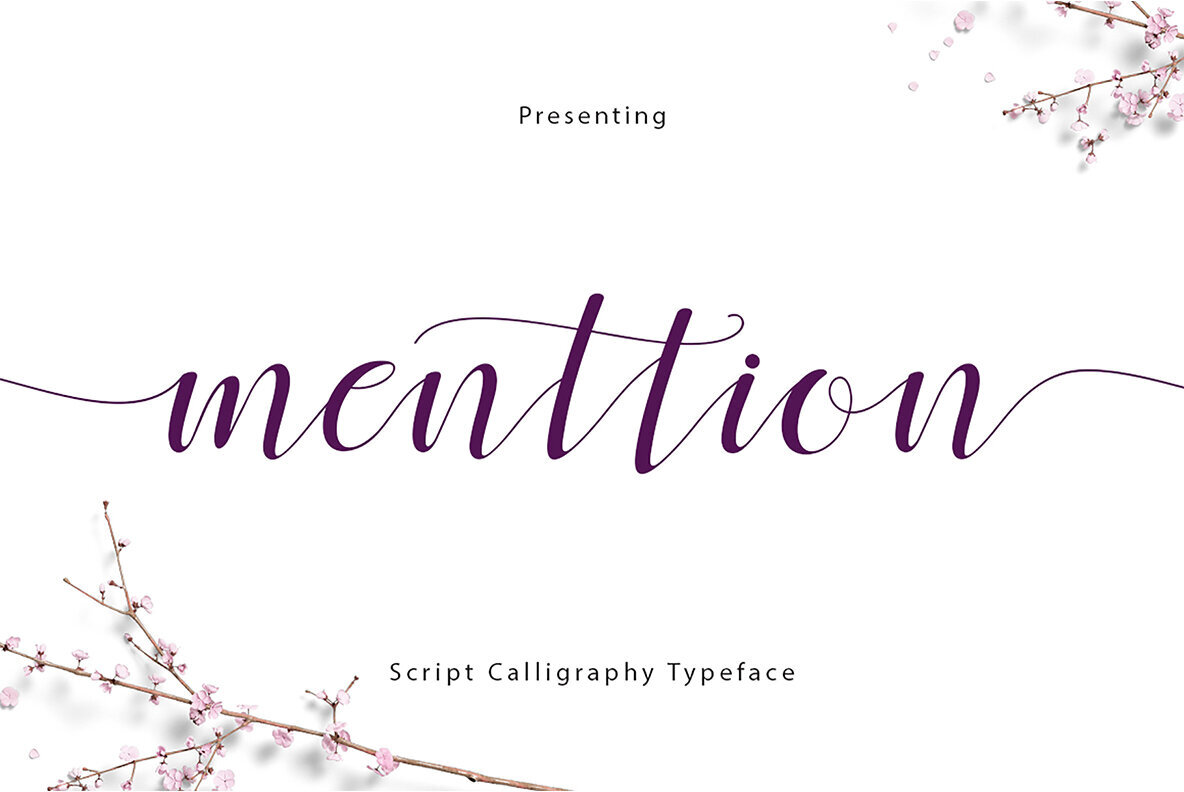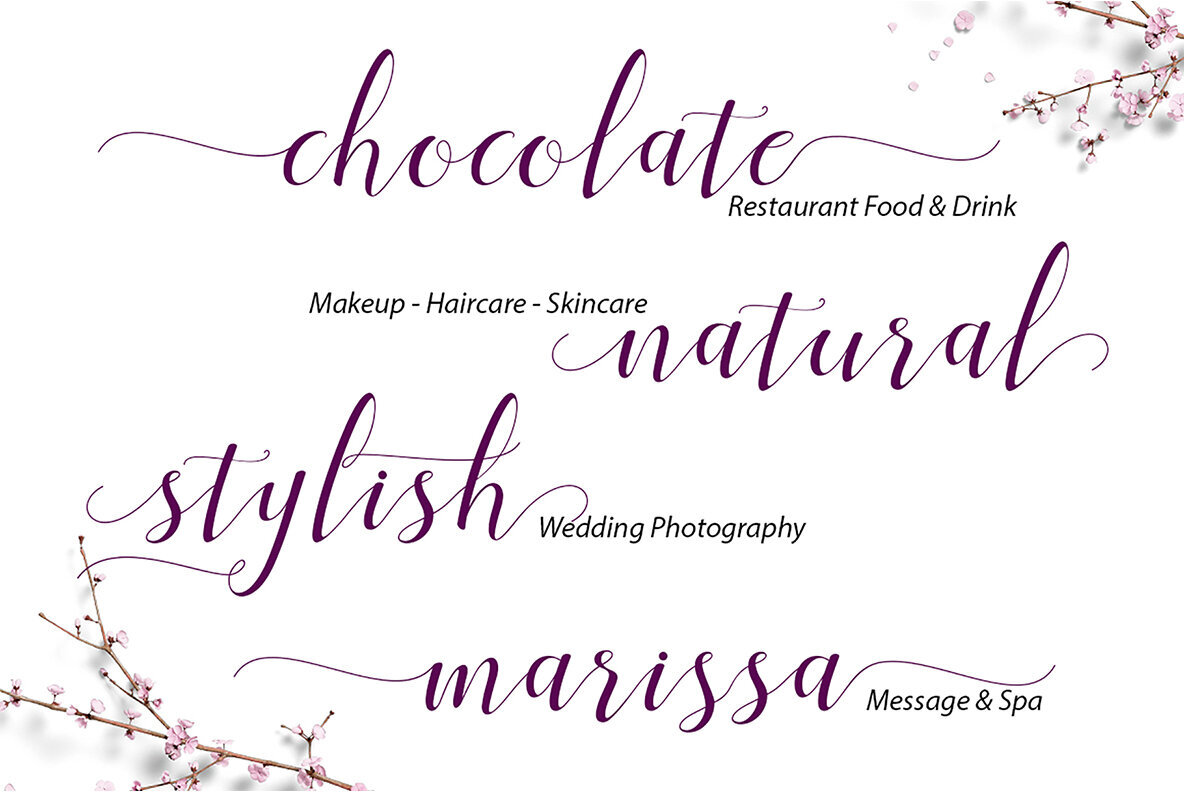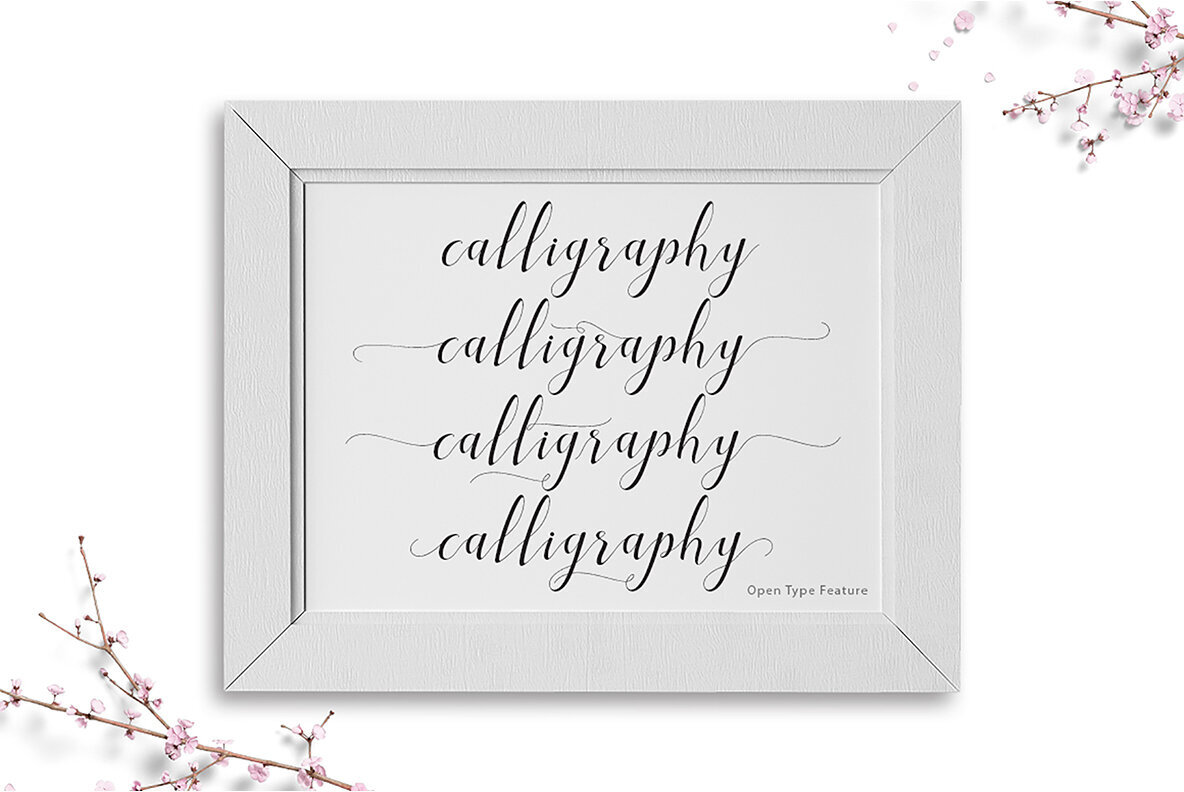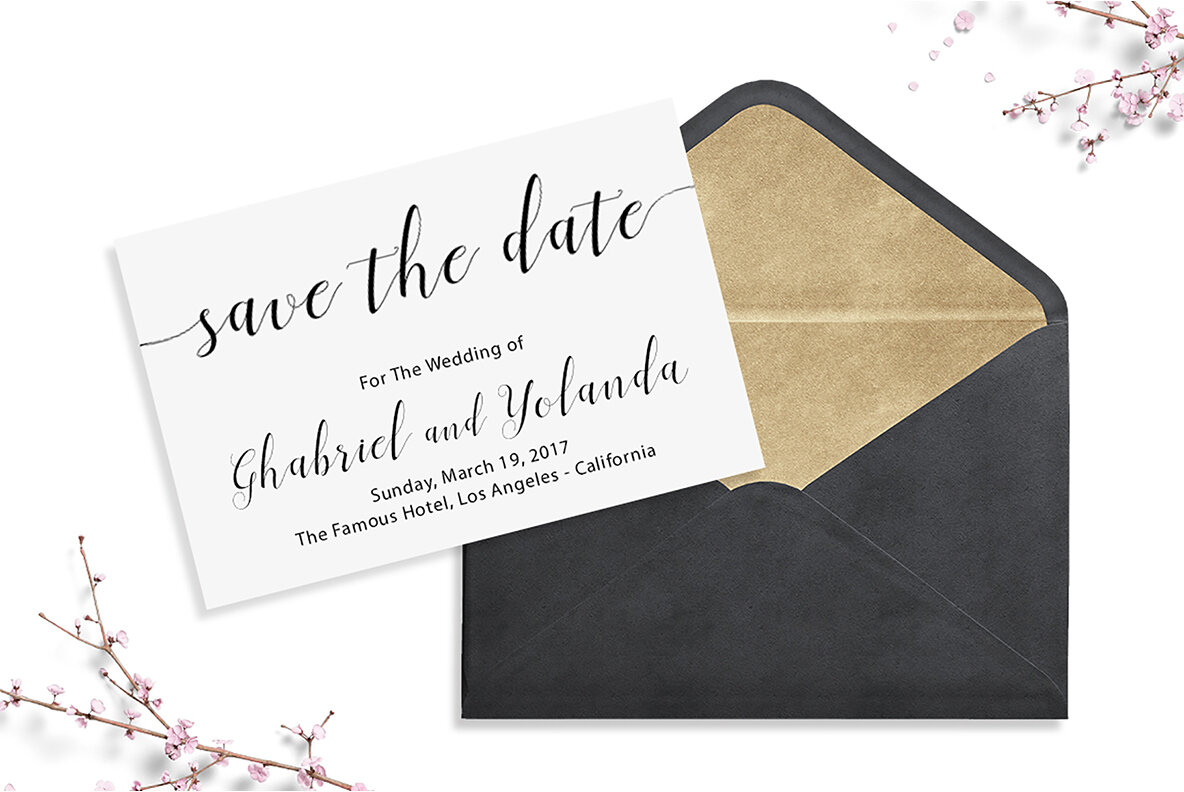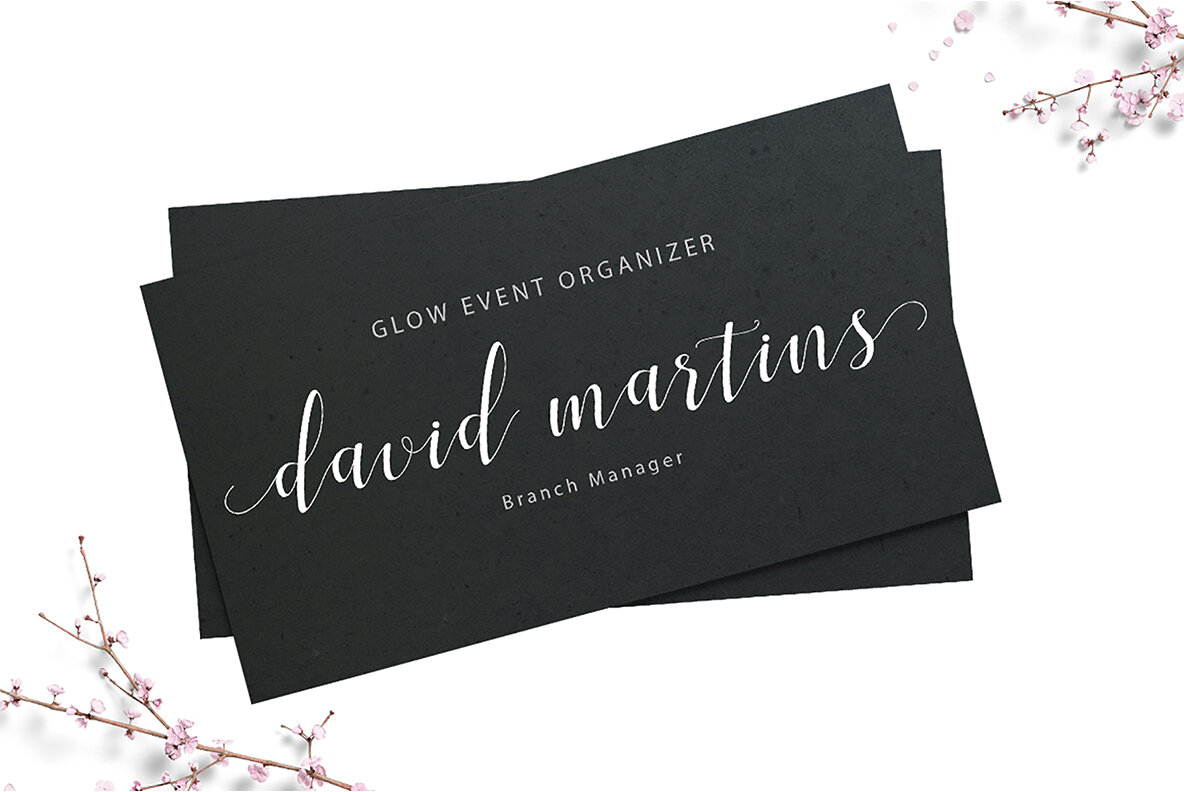
Menttion Font
Menttion Script
The Menttion Script by FadeLine Studio effortlessly combines elegance and style with a slender, feminine touch that's undeniably friendly—and a little sexy. Ideal for fashion, e-commerce brands, and trend blogs, this charming typeface suits any business seeking a classy, chic appearance. This font shines in high-end logotypes and magazine headlines. It's a perfect choice for greeting cards, invitations, posters, advertisements, and numerous web applications. Its extensive glyph set includes 382 characters, supporting multiple languages, swashes, and stylistic alternates to fuel your creativity. Whether you're crafting a high-fashion brand or designing memorable invitations, Menttion Script offers the flexibility and allure needed to make your project stand out.Menttion Script: Elegance in Typography
Versatility and Features
Pragmatic Design